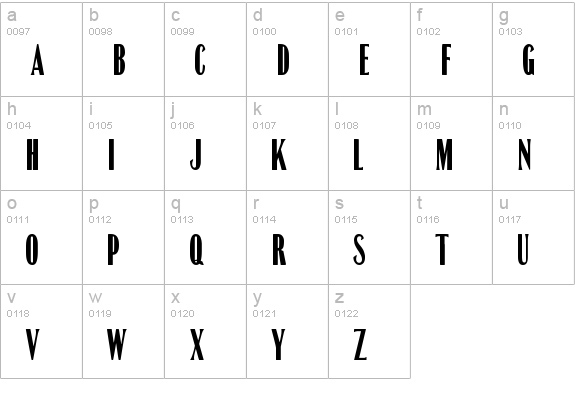
Hplhs Fonts
Forsythe hplhs font this font was posted on 06 may 2015 and is called forsythe hplhs font. While he was undeniably racist in his views, his tales have inspired generations of writers and creative artists and helped shape pop culture. With over 8,000 freeware fonts, you've come to the best place to download fonts!
Oldstyle By Hplhs Prop Fonts.
This Font Was Posted On 06 May 2015 And Is Called Headline One Hplhs Font.
This font was posted on 09 may 2015 and is called ww2blackletter hplhs font. Designed exclusively for the hplhs. Blending gothic traditions with science fiction, lovecraft’s imagination created a world within our world, one.